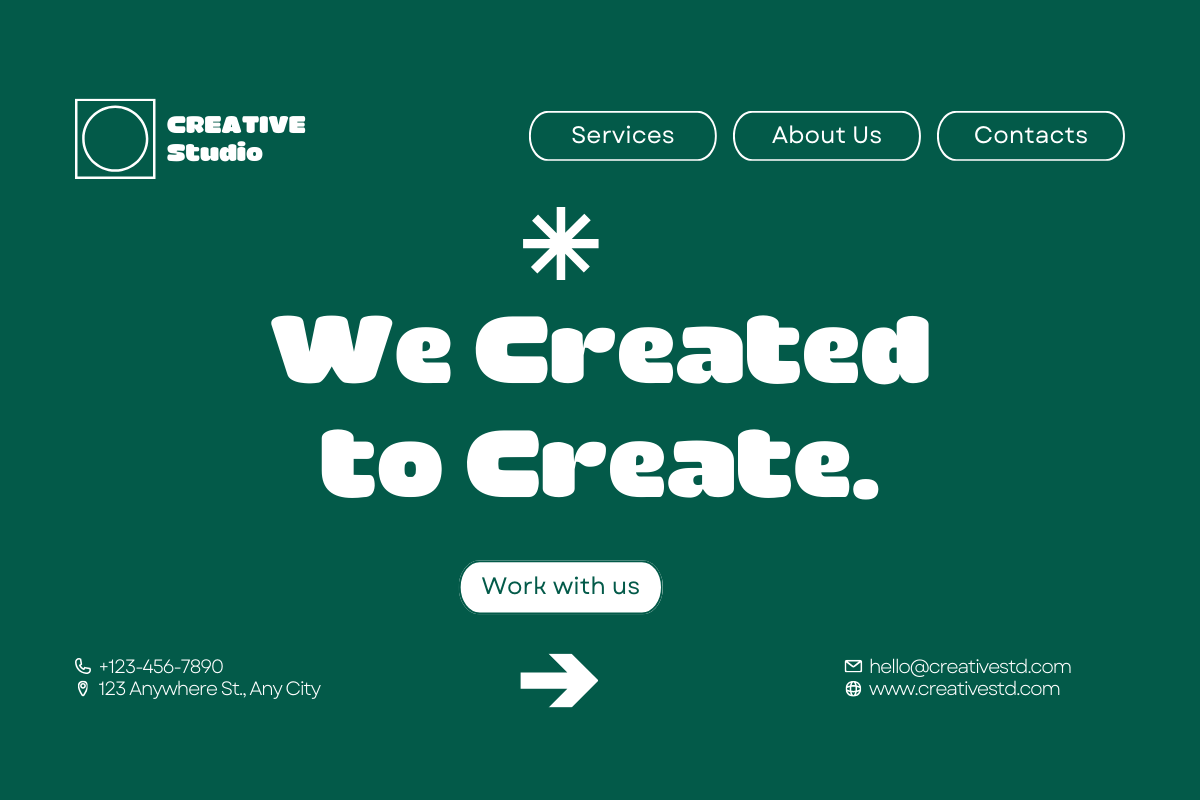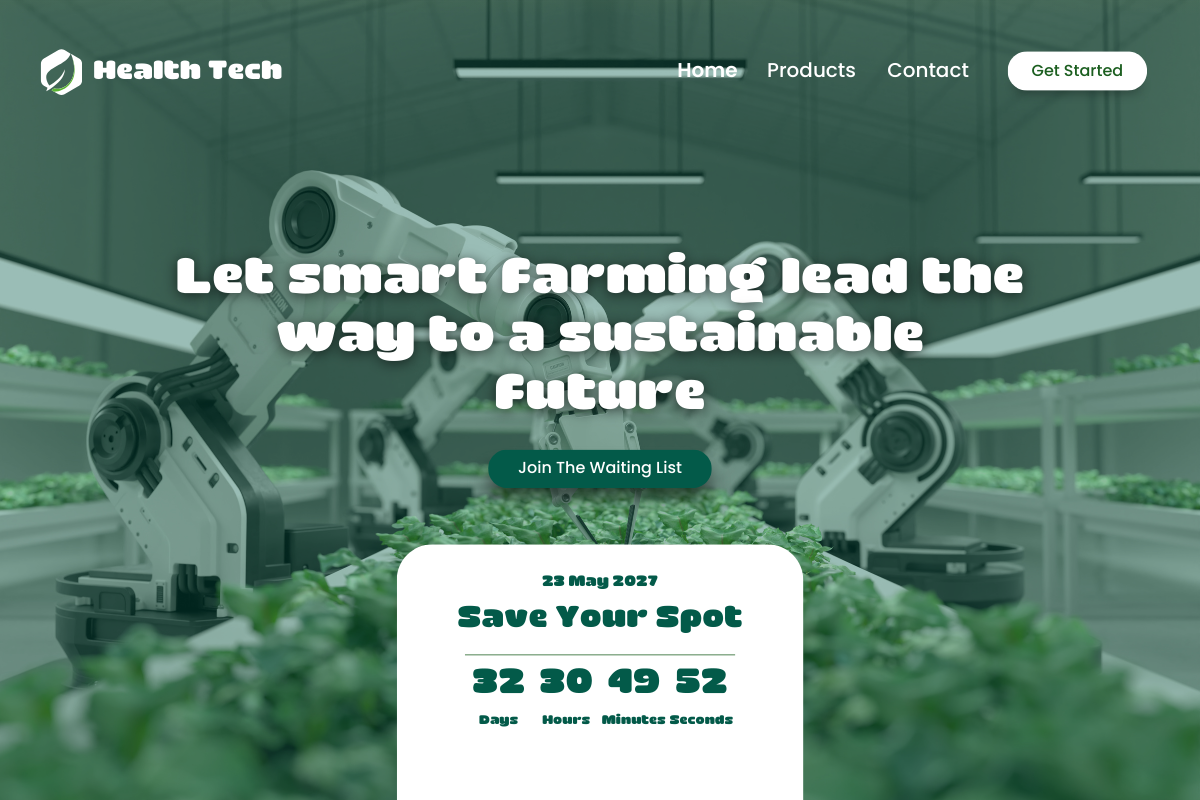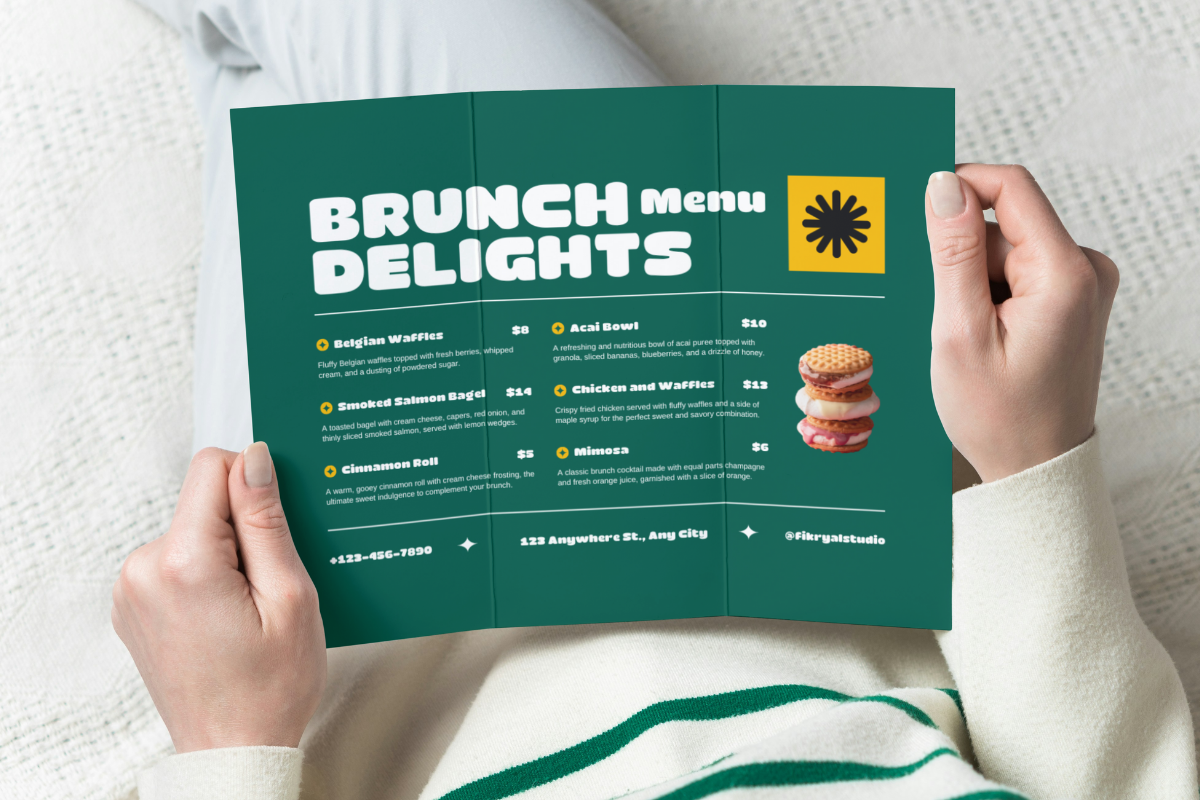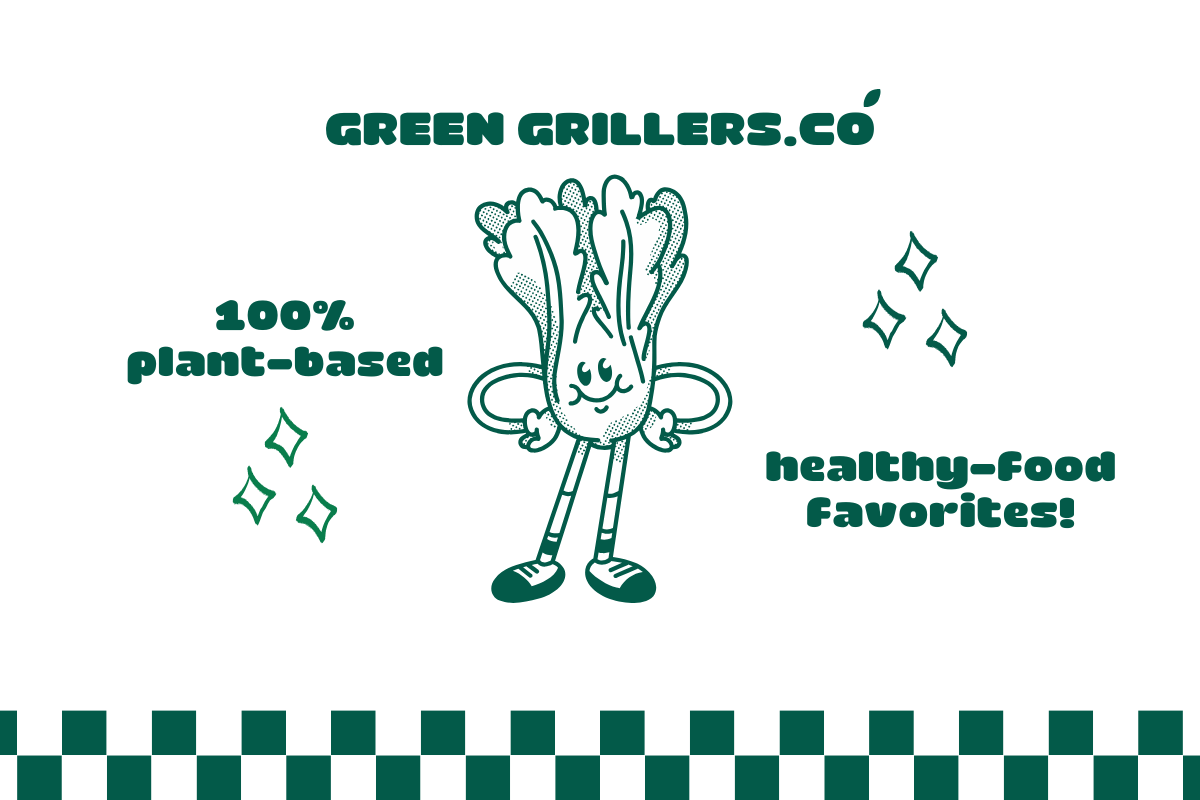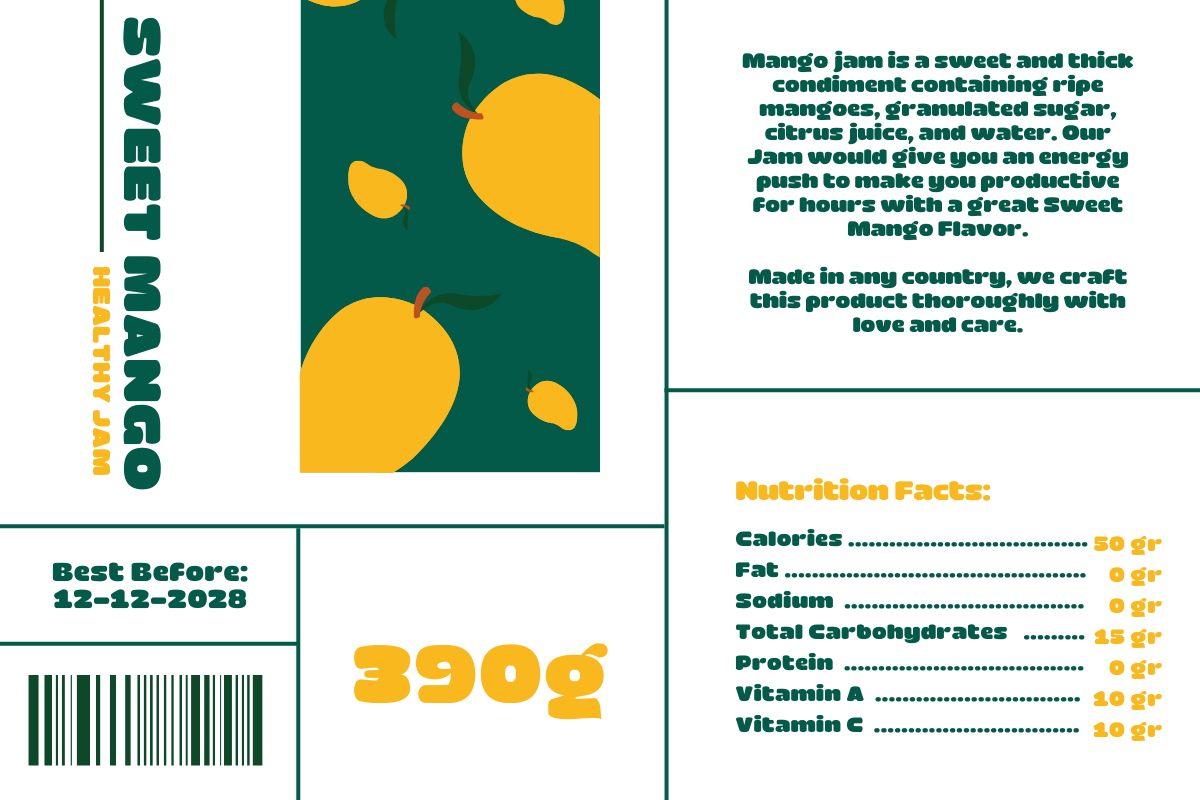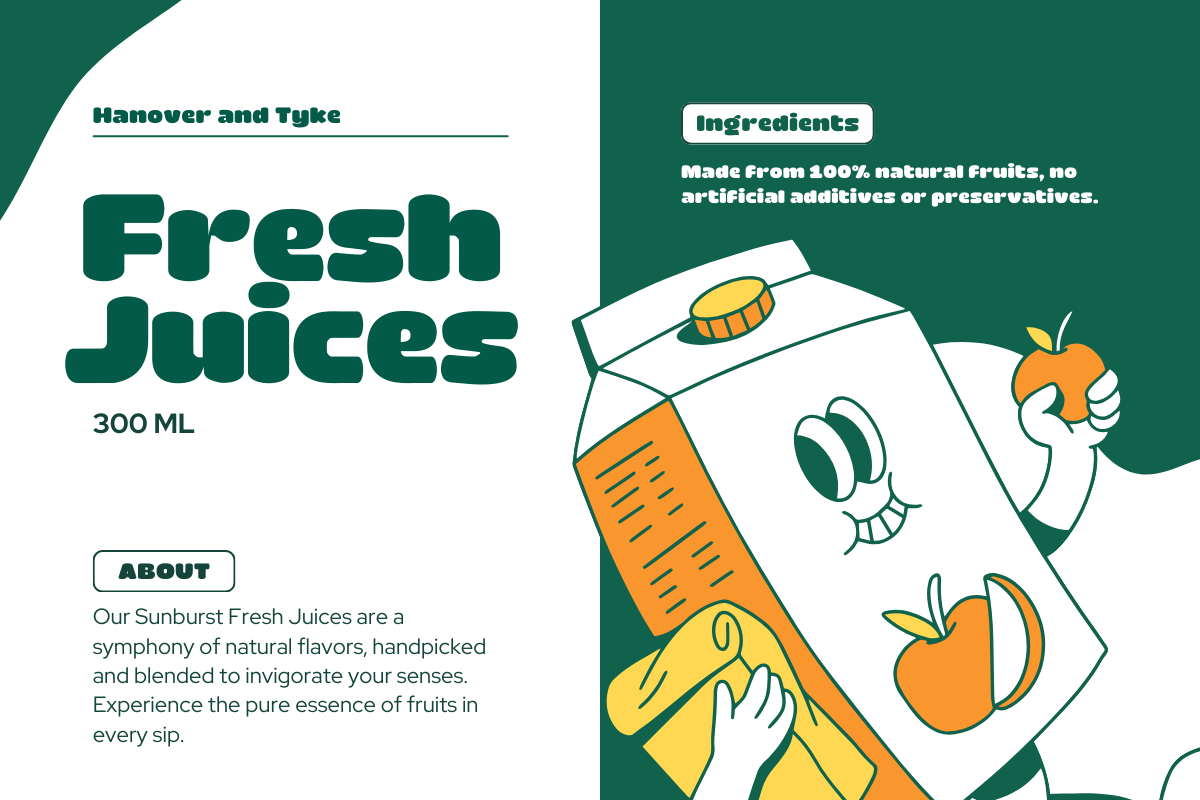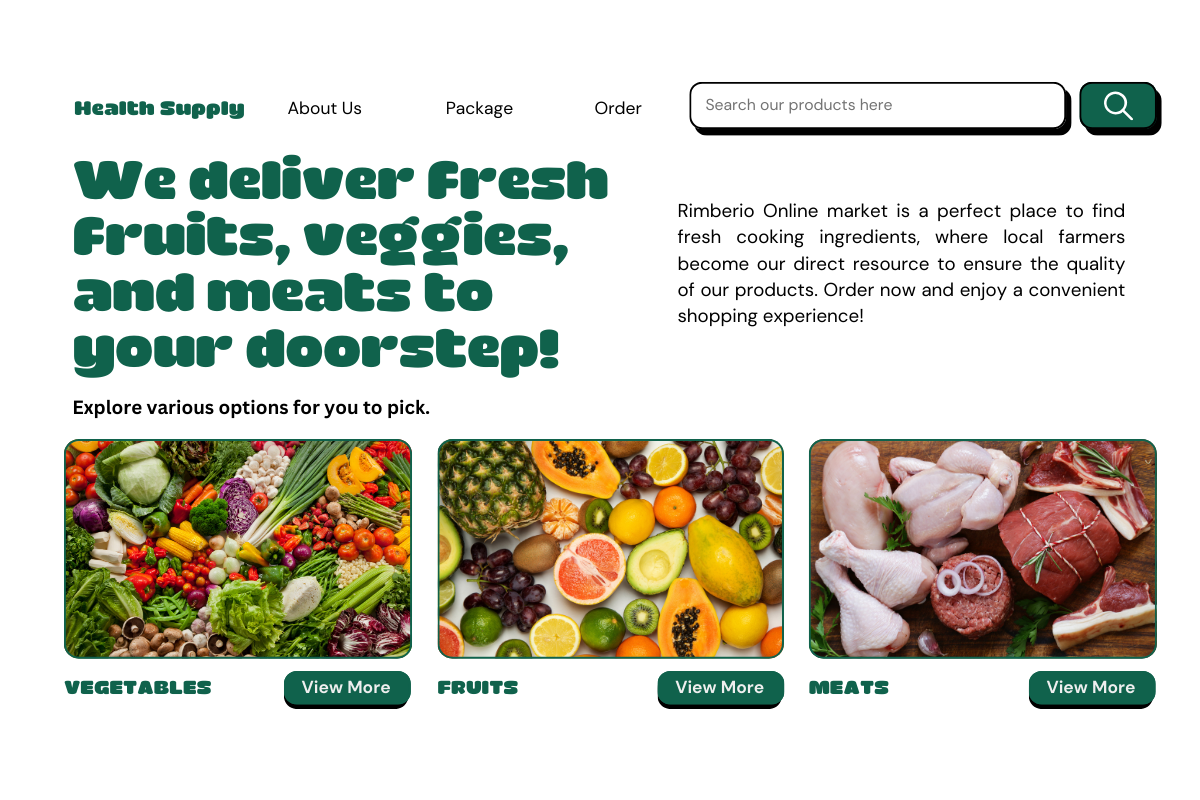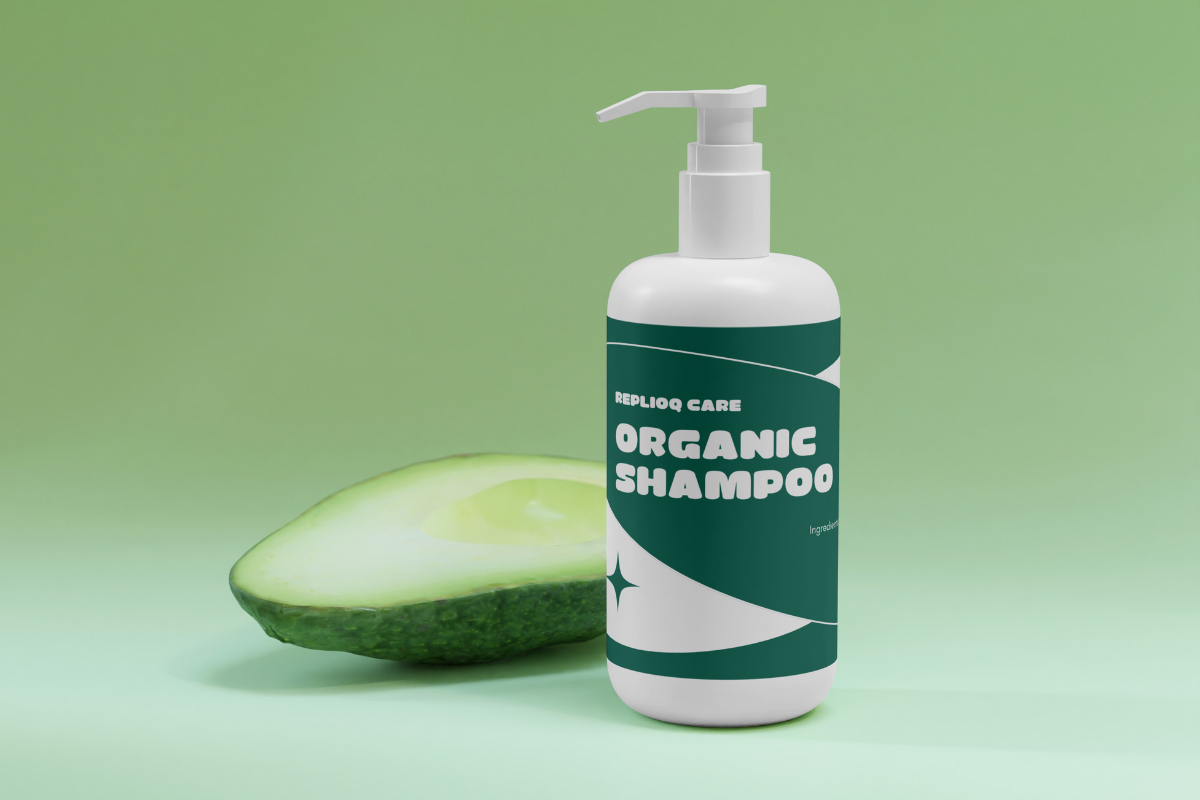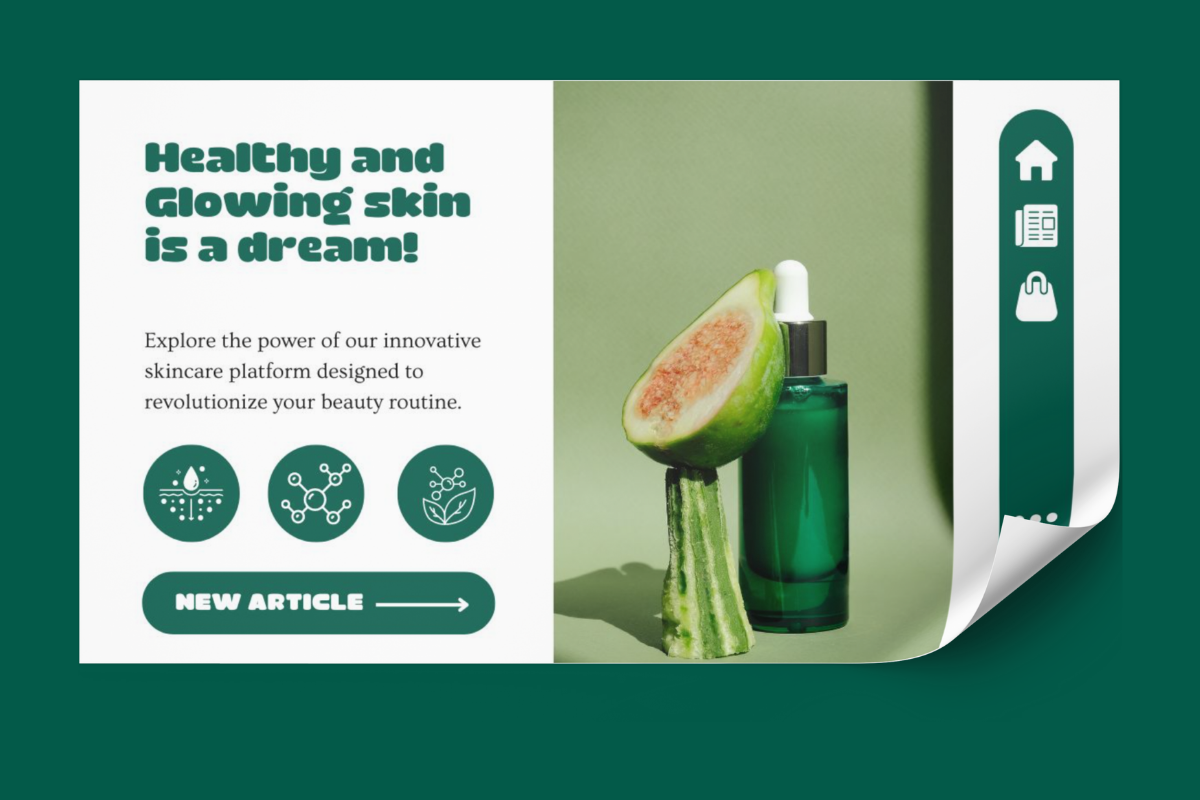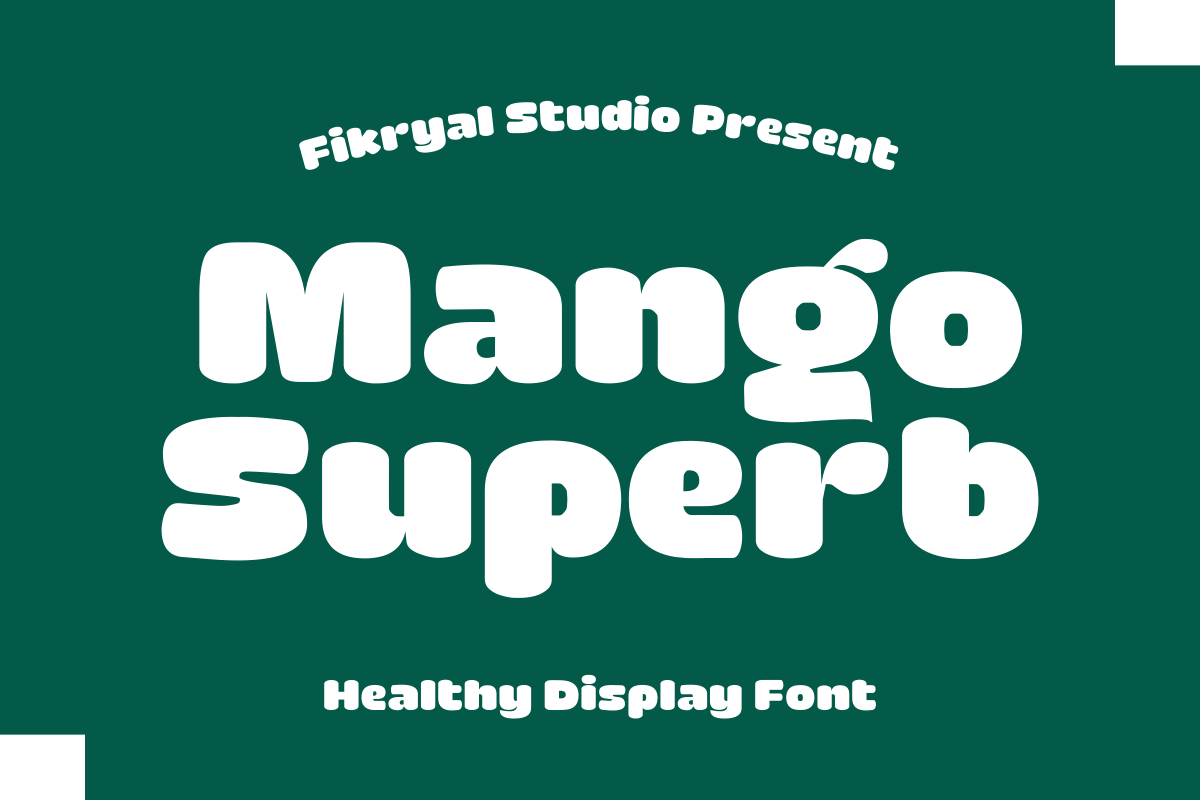
Mango Superb – Healthy Display Font
Introducing Mango Superb – Healty Display Font, a robust and versatile typeface designed to make your text pop with vitality and character. With its bold display style, Mango Superb commands attention while exuding a sense of health and vibrancy.
Crafted with meticulous attention to detail, this font features a seamless blend of lowercase and uppercase letters, ensuring flexibility and ease of use across various design projects. Whether you’re creating eye-catching headlines, striking logos, or dynamic posters, Mango Superb delivers a compelling visual impact.
Moreover, Mango Superb is not bound by language barriers, as it supports a wide range of languages, making it an ideal choice for global audiences. Its multilingual support ensures that your message resonates with diverse communities around the world.
Infuse your designs with energy and sophistication using Mango Superb – the perfect fusion of style and functionality for your typographic needs.